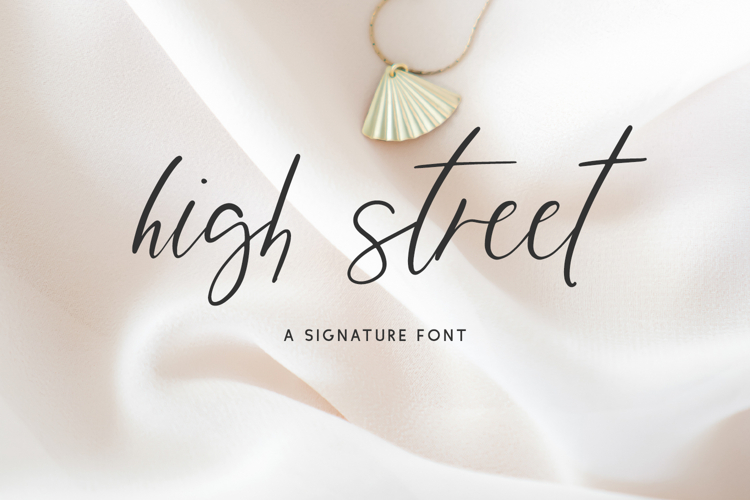
Introducing High Street Script, a leaning signature font. High Street features thin clean lines, reminiscent of handwriting notes.
High Street Script is best for:
- website design + website accents - think travel blogs, fashion blogs, & more
- 26 alternate lowercase characters